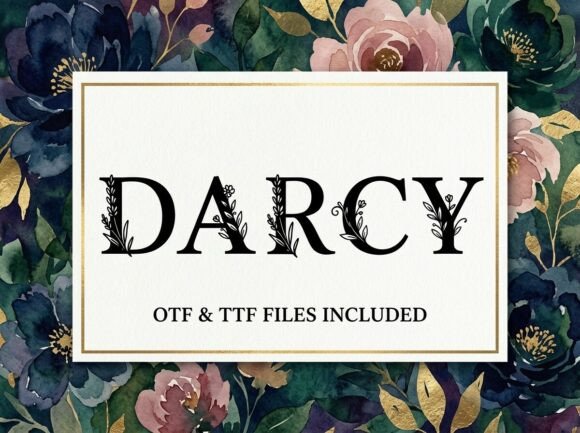
Introducing Darcy Font: Elevate Your Typography with Artisanal Elegance
In the world of typography, few fonts manage to capture the essence of sophistication and botanical charm as effortlessly as Darcy. This premium floral serif font is a masterpiece of design, blending timeless, solid serif letterforms with delicate, hand-drawn wildflower illustrations and leaf sprouts. The result is a typeface that exudes a refined, earthy elegance, perfect for designers and crafters seeking to infuse their projects with a touch of artisanal grace.
The Unique Charm of Darcy
Darcy’s design is characterized by its balanced graphic weight and romantic personality. Each letterform is carefully crafted to convey a sense of luxury and refinement, while the intricate floral illustrations and leaf sprouts add a whimsical, organic touch. This harmonious blend of classic and natural elements makes Darcy an ideal choice for a wide range of applications, from independent wedding stationery and boutique apothecary packaging to garden-inspired lifestyle branding and social media headers.
Key Features of Darcy Font
- Timeless Serif Letterforms: Darcy’s serif letterforms are designed to stand the test of time, providing a solid foundation for any typographic project.
- Hand-Drawn Wildflower Illustrations: The delicate, hand-drawn wildflower illustrations add a touch of whimsy and organic charm to the font.
- Delicate Leaf Sprouts: The leaf sprouts that adorn the letterforms add a subtle, natural element that enhances the font’s botanical theme.
- Balanced Graphic Weight: Darcy’s balanced graphic weight ensures that the font is legible and visually appealing in a variety of contexts.
- Romantic Personality: The font’s romantic personality makes it perfect for applications where a touch of elegance and sophistication is desired.
Applications for Darcy Font
Darcy’s versatility and unique charm make it an excellent choice for a wide range of applications, including:
- Independent Wedding Stationery: Darcy’s elegant, refined design makes it perfect for wedding invitations, save-the-date cards, and other wedding stationery.
- Boutique Apothecary Packaging: The font’s botanical theme and luxurious feel make it an excellent choice for boutique apothecary packaging and branding.
- Garden-Inspired Lifestyle Branding: Darcy’s natural, organic elements make it a great fit for garden-inspired lifestyle brands, including nurseries, gardening supplies, and outdoor apparel.
- Social Media Headers: The font’s bold, eye-catching design makes it perfect for social media headers, where it can help to elevate a brand’s online presence.
Why Choose Darcy Font?
In a world where typography plays a crucial role in shaping brand identity and aesthetic, Darcy offers a unique combination of style, sophistication, and natural charm. By choosing Darcy, designers and crafters can:
- Elevate Their Typography: Darcy’s refined, elegant design can help to elevate typography and add a touch of luxury to any project.
- Stand Out from the Crowd: The font’s unique blend of classic and natural elements makes it a standout choice for designers and crafters seeking to differentiate themselves.
- Connect with Nature: Darcy’s botanical theme and organic elements can help to create a sense of connection with nature, perfect for brands and projects that celebrate the natural world.
Darcy font is a true masterpiece of typographic design, offering a unique blend of sophistication, elegance, and natural charm. With its timeless serif letterforms, delicate hand-drawn wildflower illustrations, and balanced graphic weight, Darcy is the perfect choice for designers and crafters seeking to infuse their projects with a touch of artisanal grace. Whether you’re creating independent wedding stationery, boutique apothecary packaging, or garden-inspired lifestyle branding, Darcy is sure to elevate your typography and leave a lasting impression.